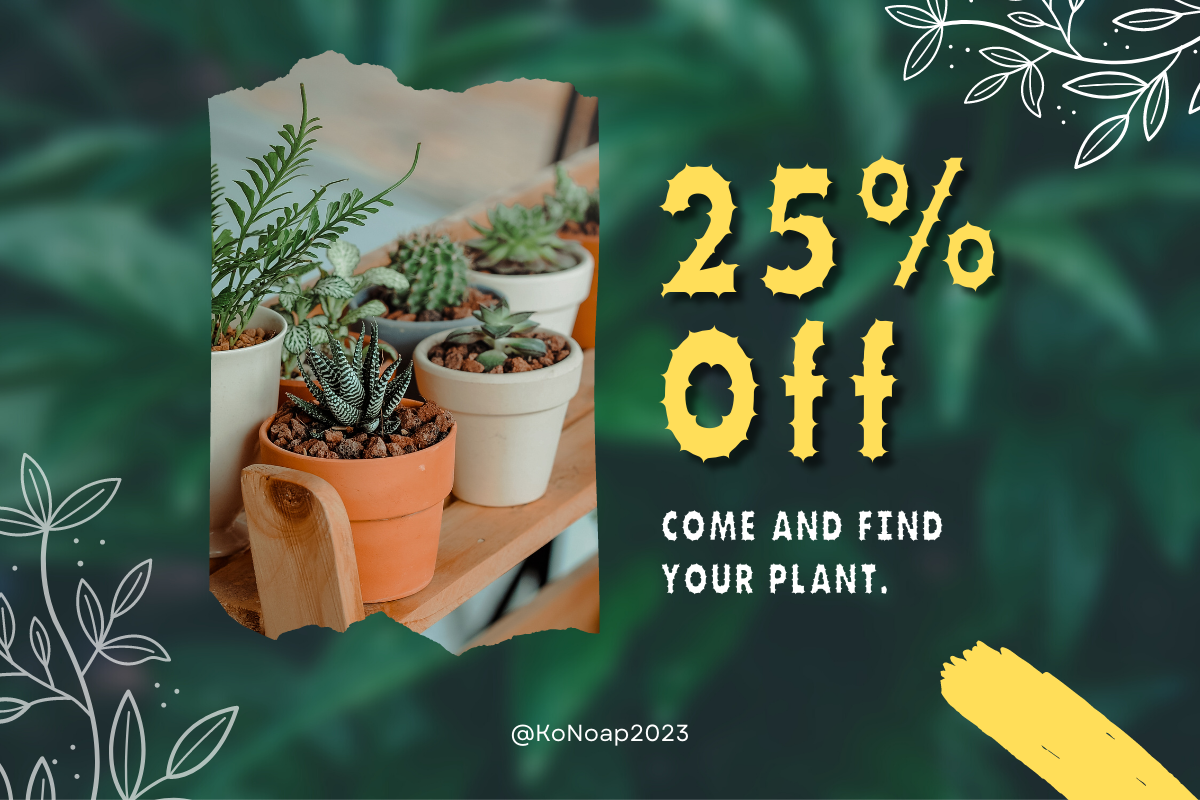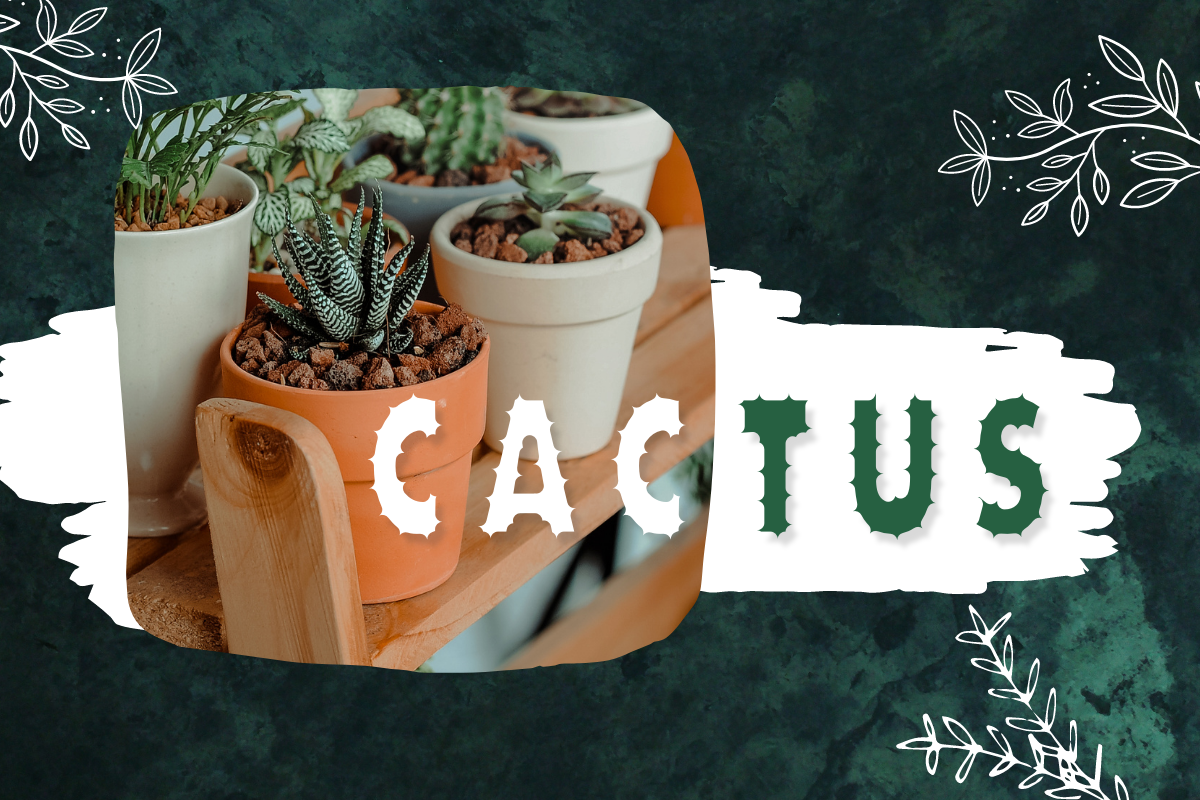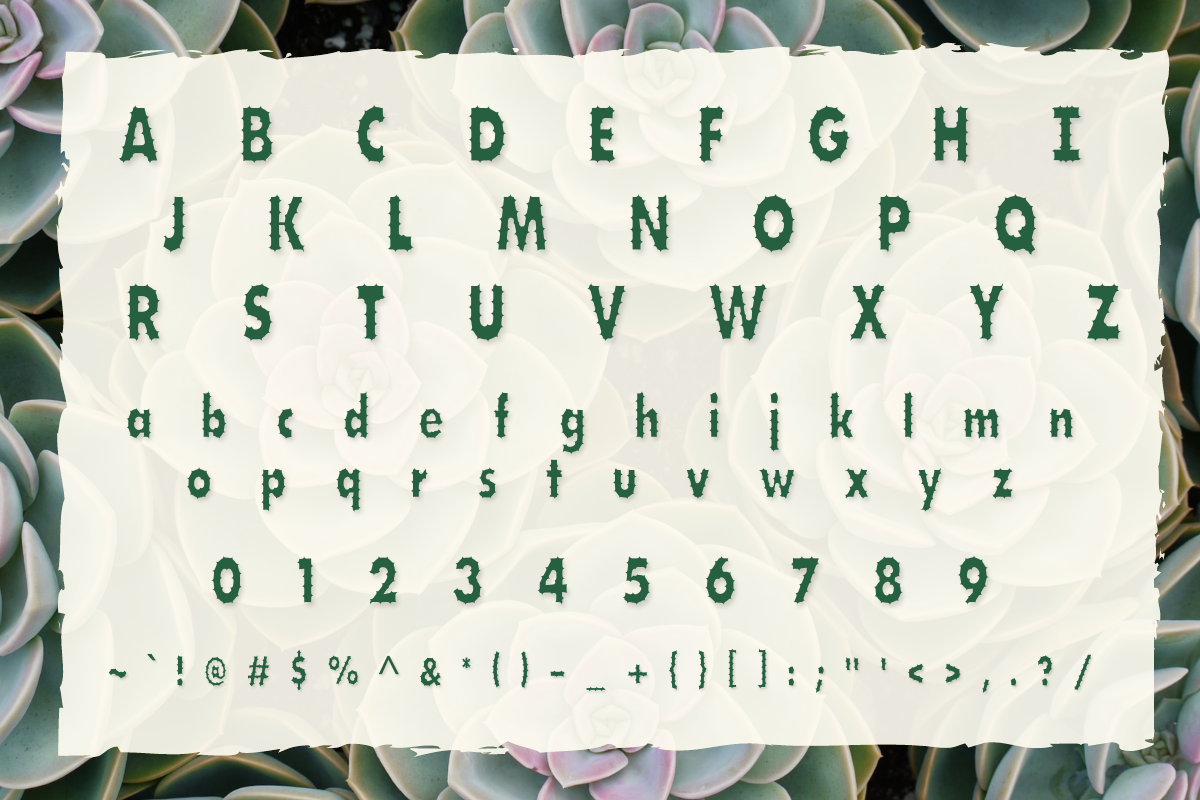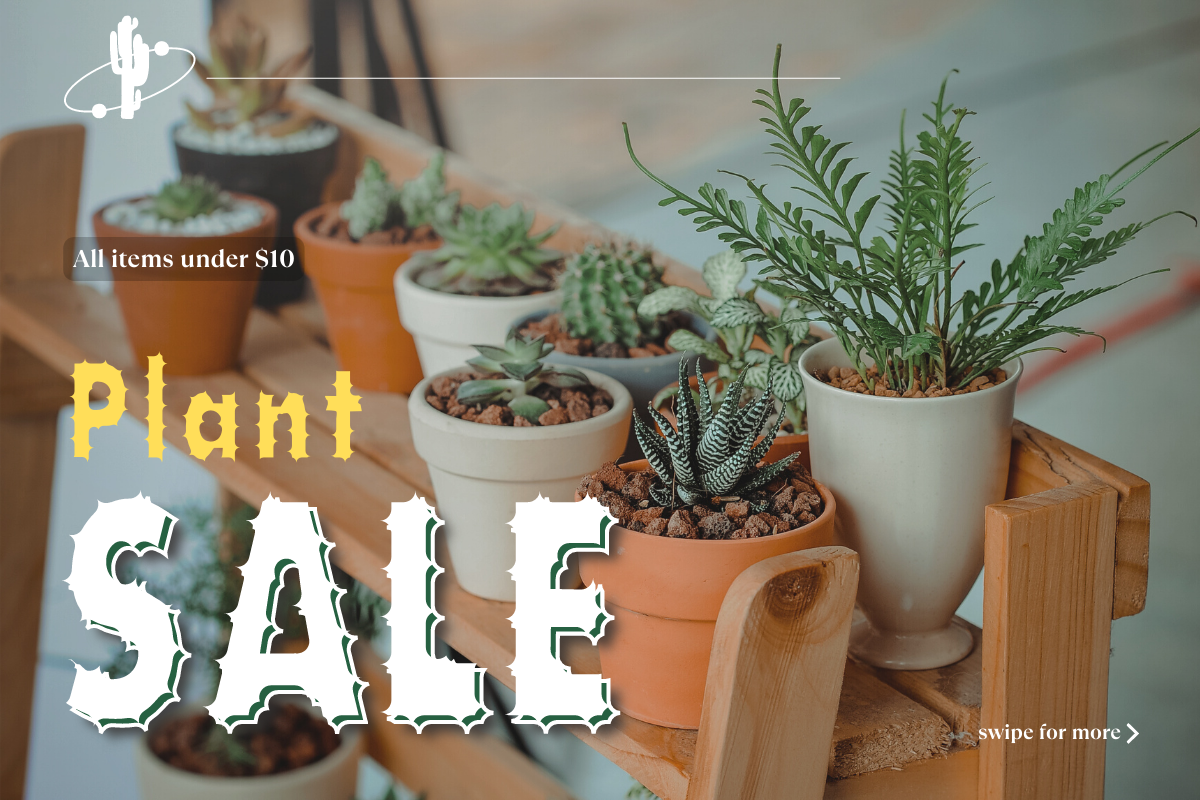
Spikes
Spikes: A font modeled after a cactus. Very suitable for any design purpose like magazines, packaging, branding, posters, greeting cards, letterhead, and many more other creative project.